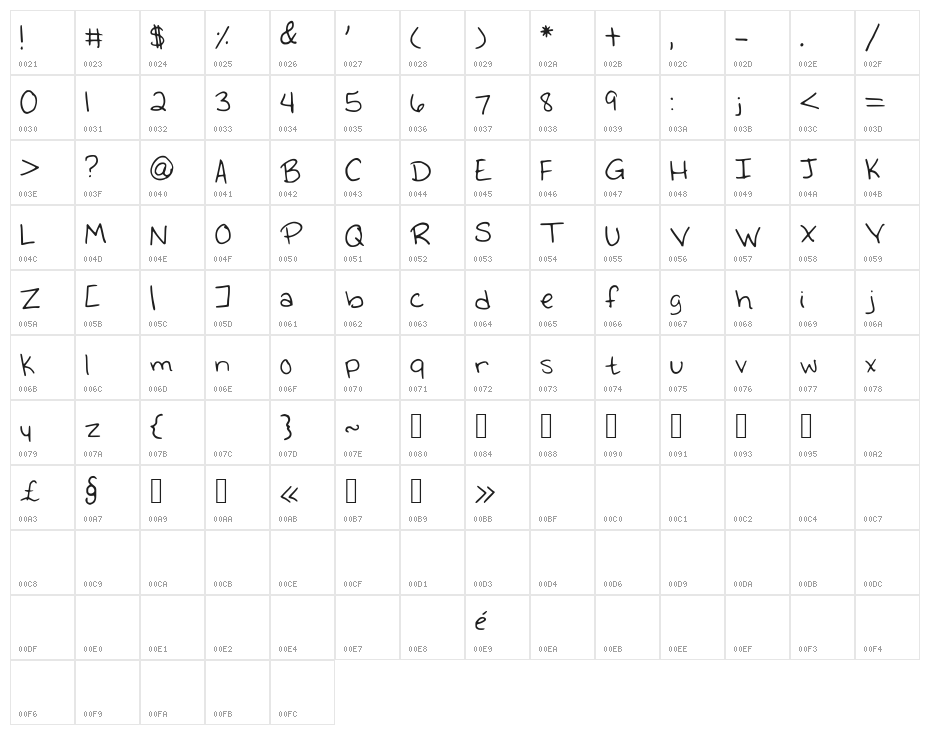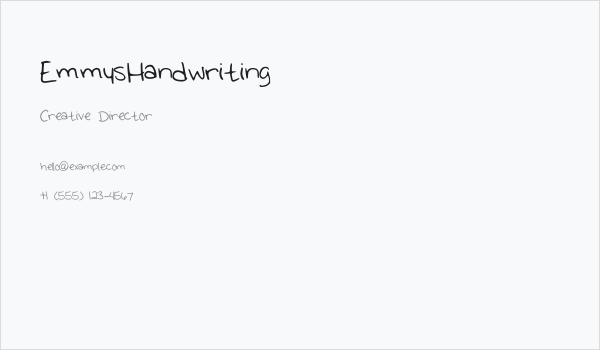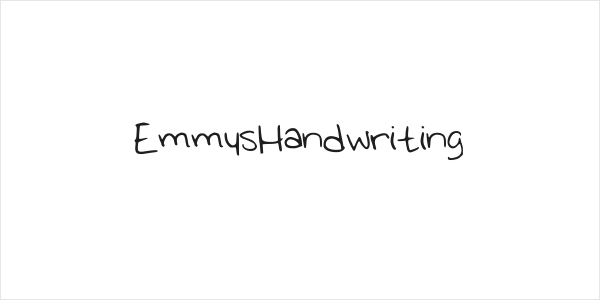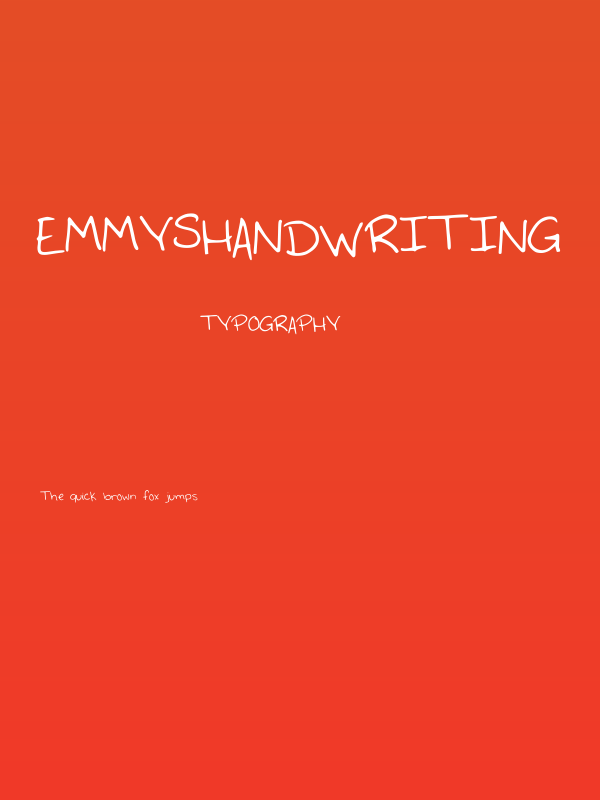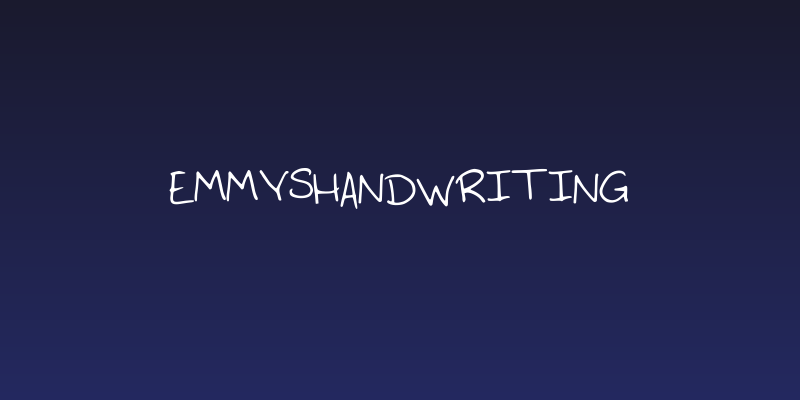
EmmysHandwriting Font
EmmysHandwriting Description
This font exudes a casual and playful handwritten style, reminiscent of personal notes or informal letters. The characters are slightly irregular, adding a touch of authenticity and charm. The strokes are consistent in width, giving it a balanced appearance. The uppercase letters are bold and confident, while the lowercase letters maintain a friendly and approachable demeanor. Numbers and special characters are crafted with the same playful essence, making them easily readable and visually appealing. This font is perfect for projects that require a personal touch, such as greeting cards, invitations, or creative branding.
| Proposed Projects | Ideal for greeting cards, invitations, personal notes, and creative branding. |